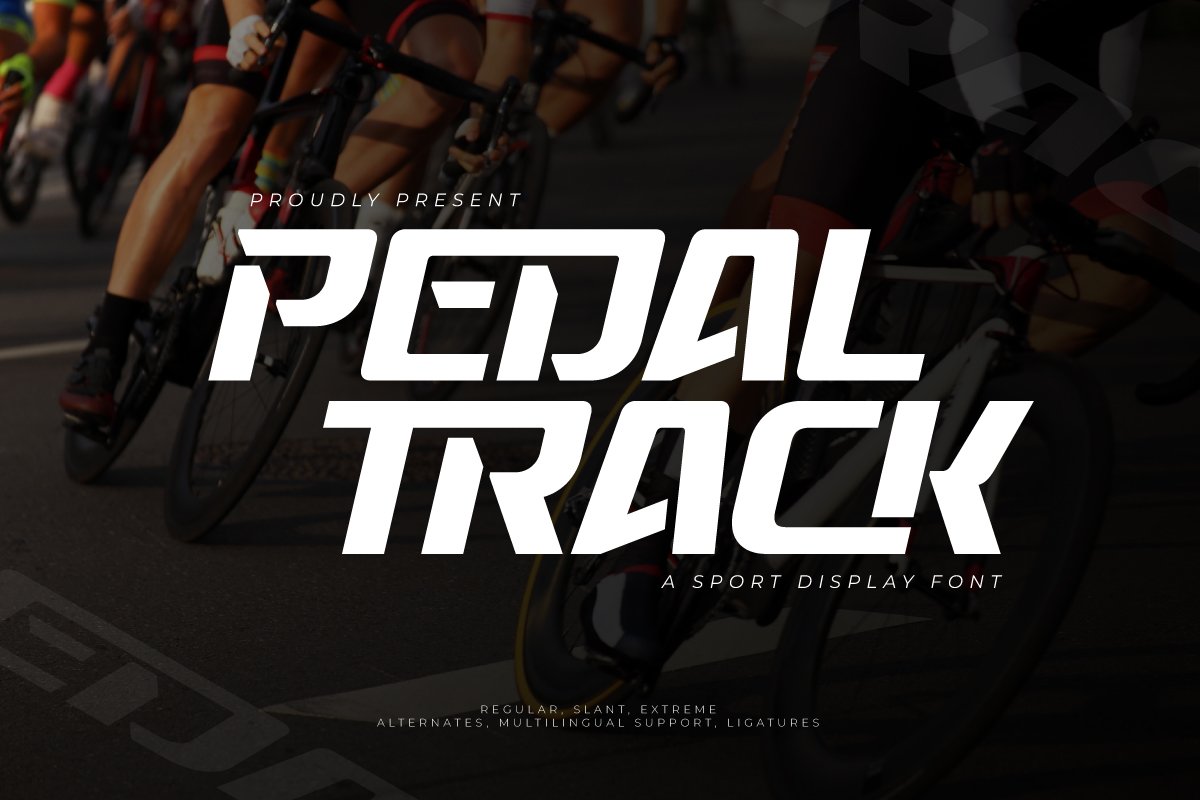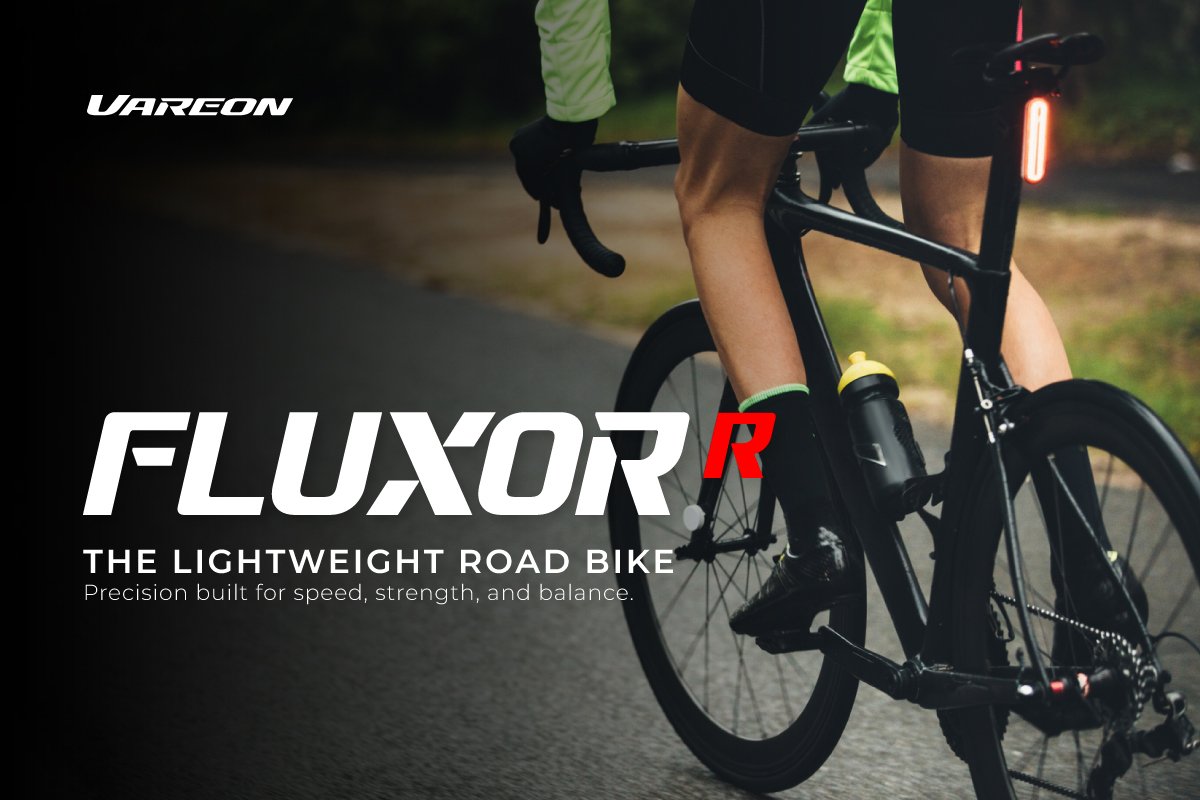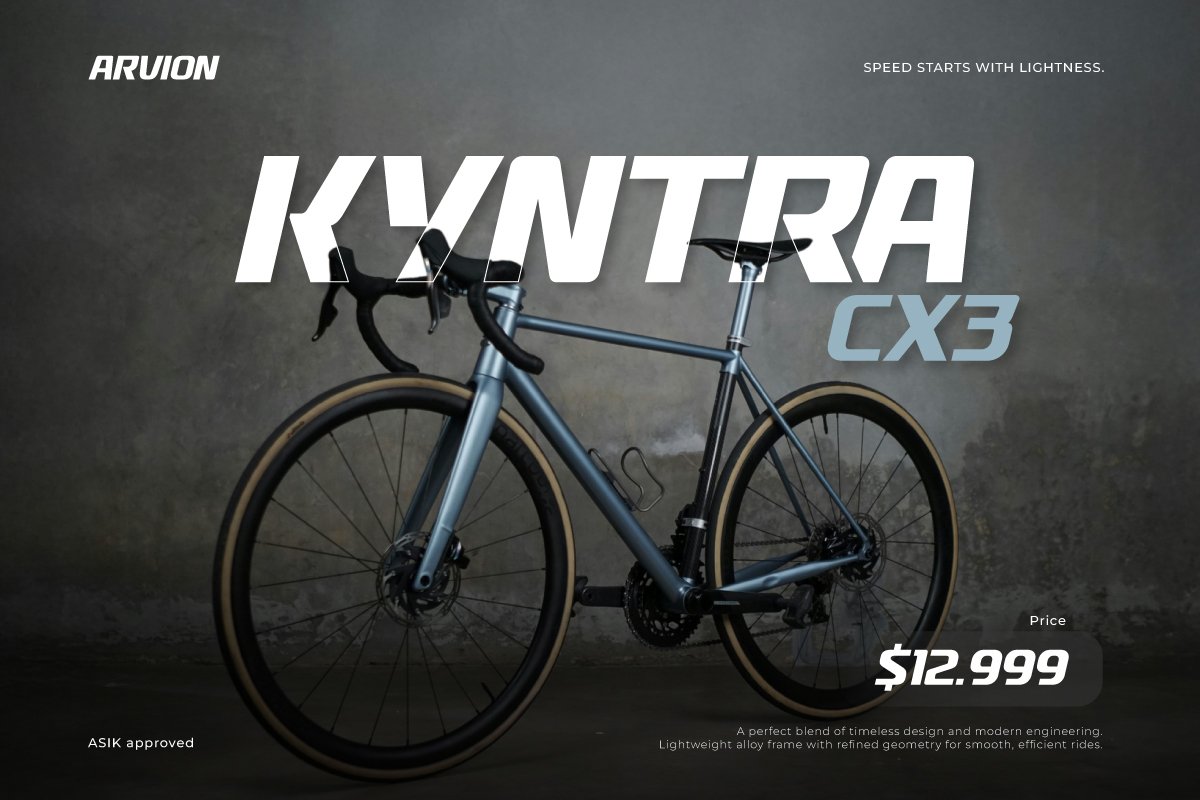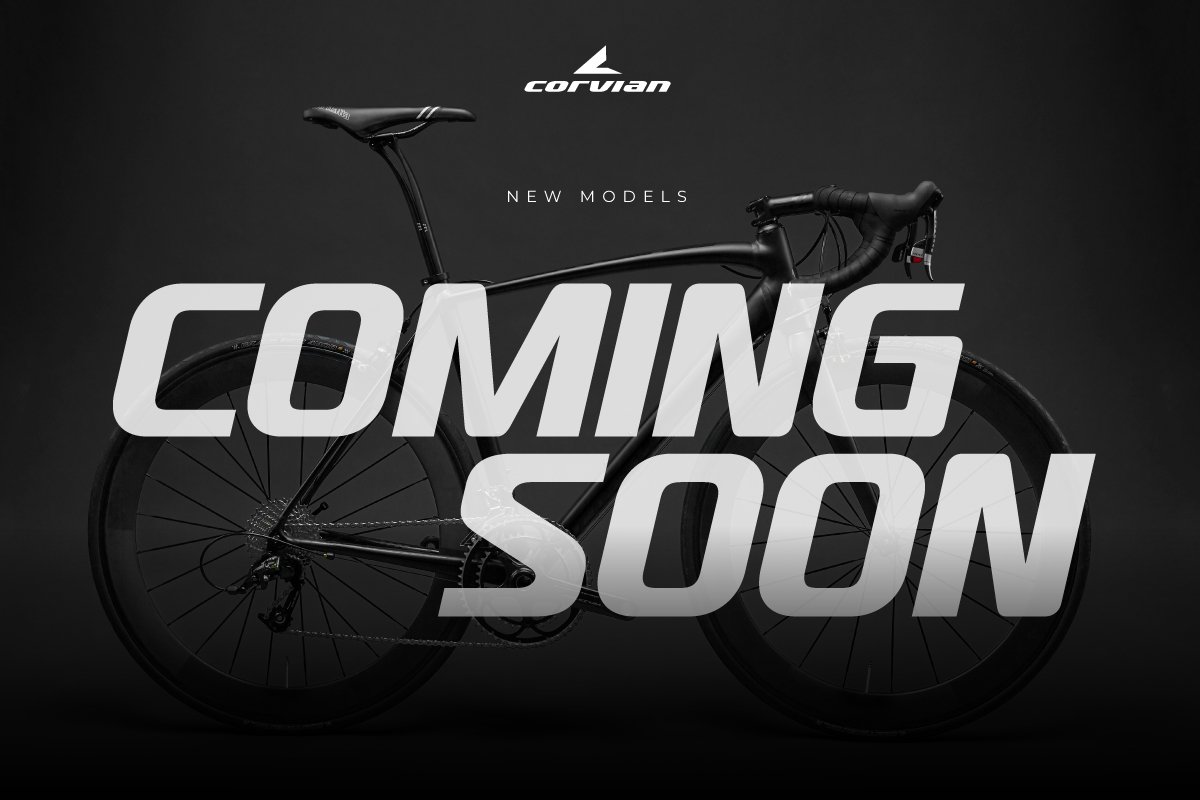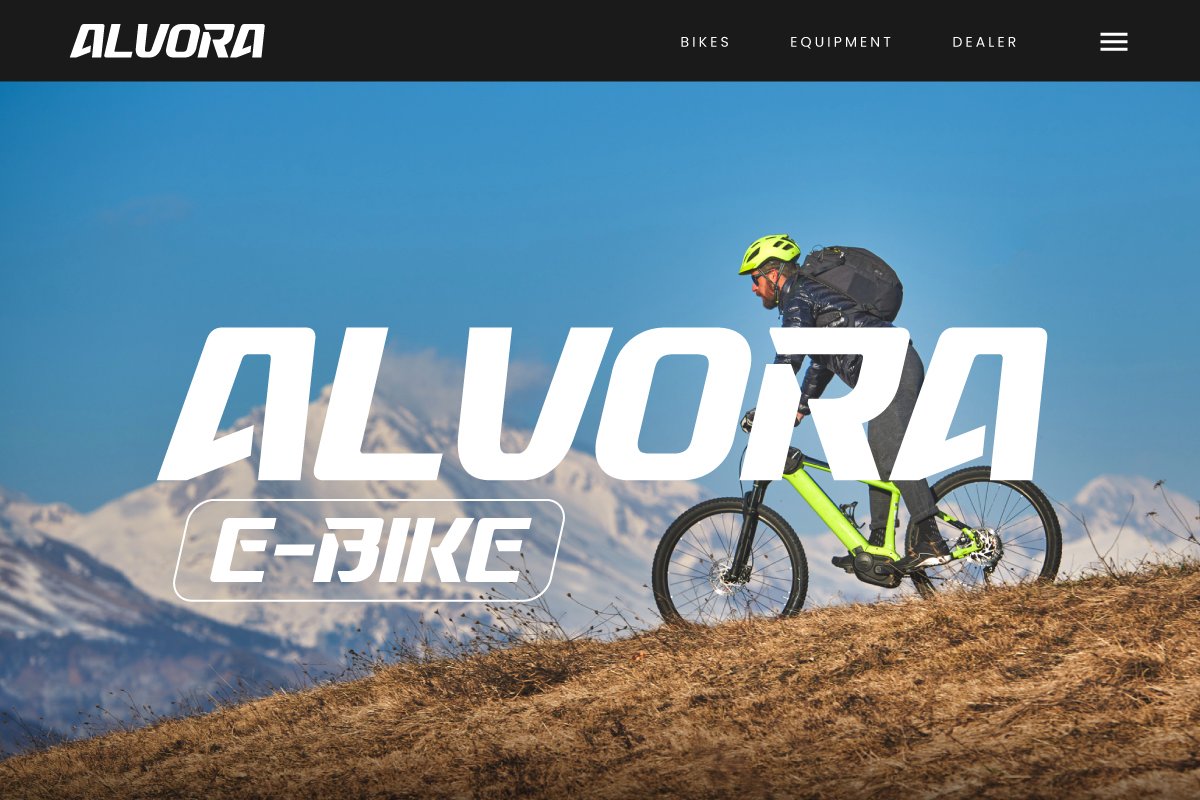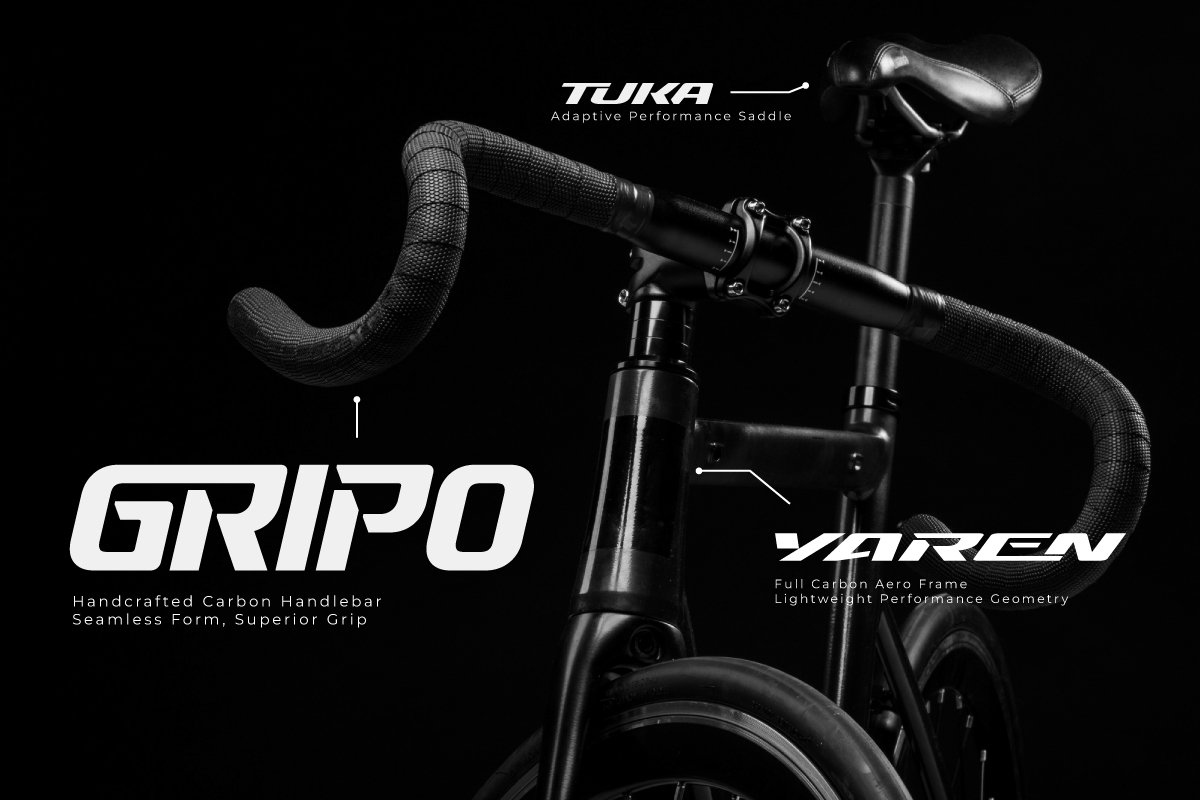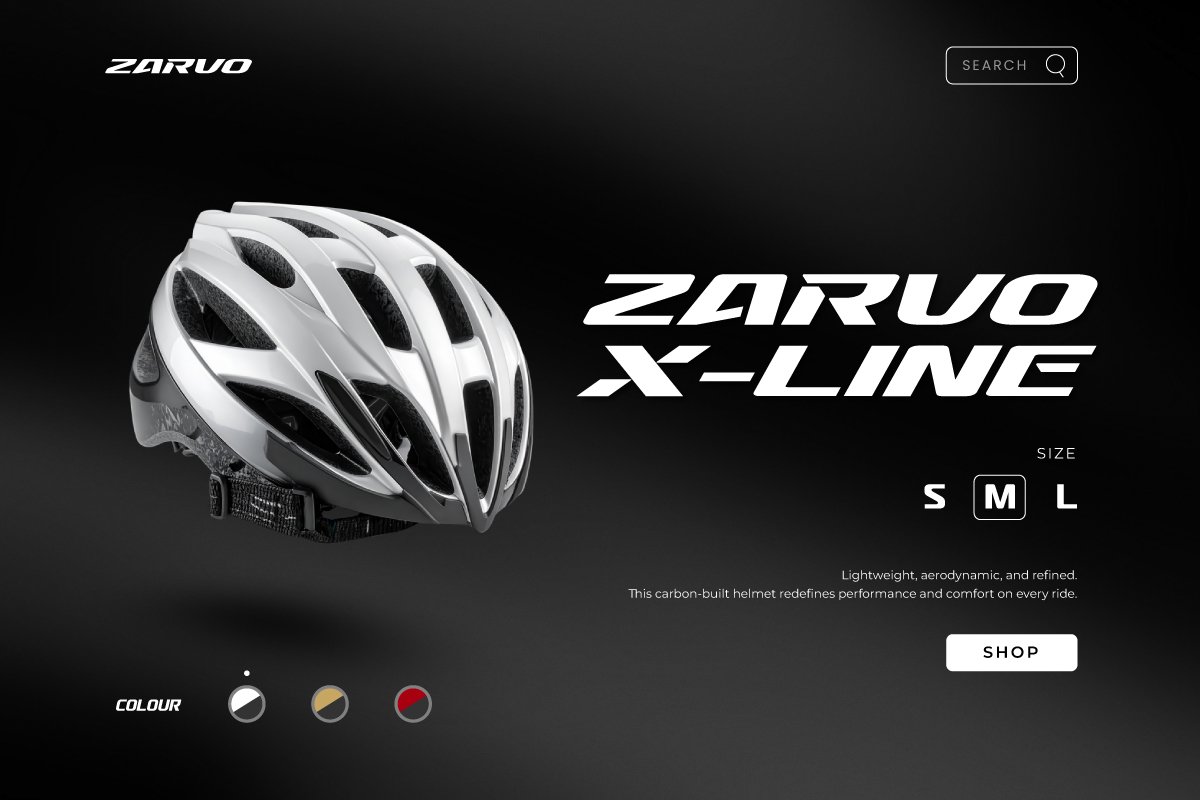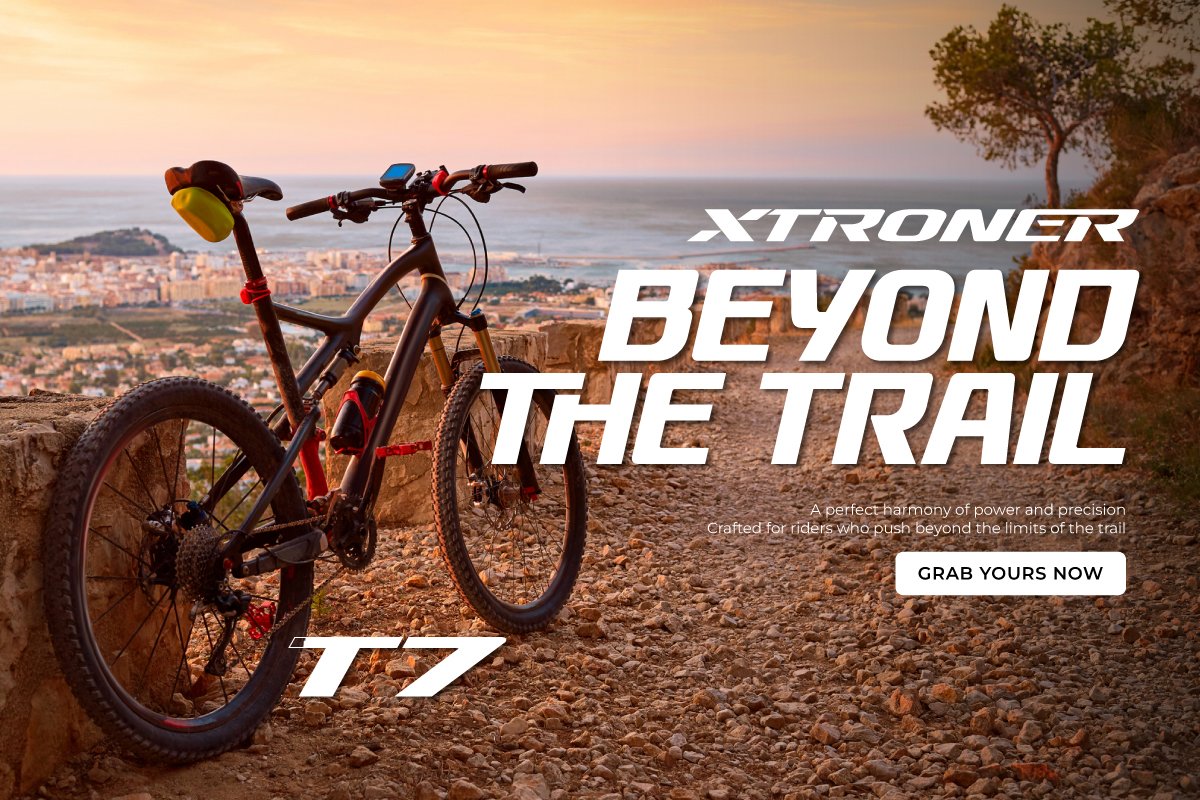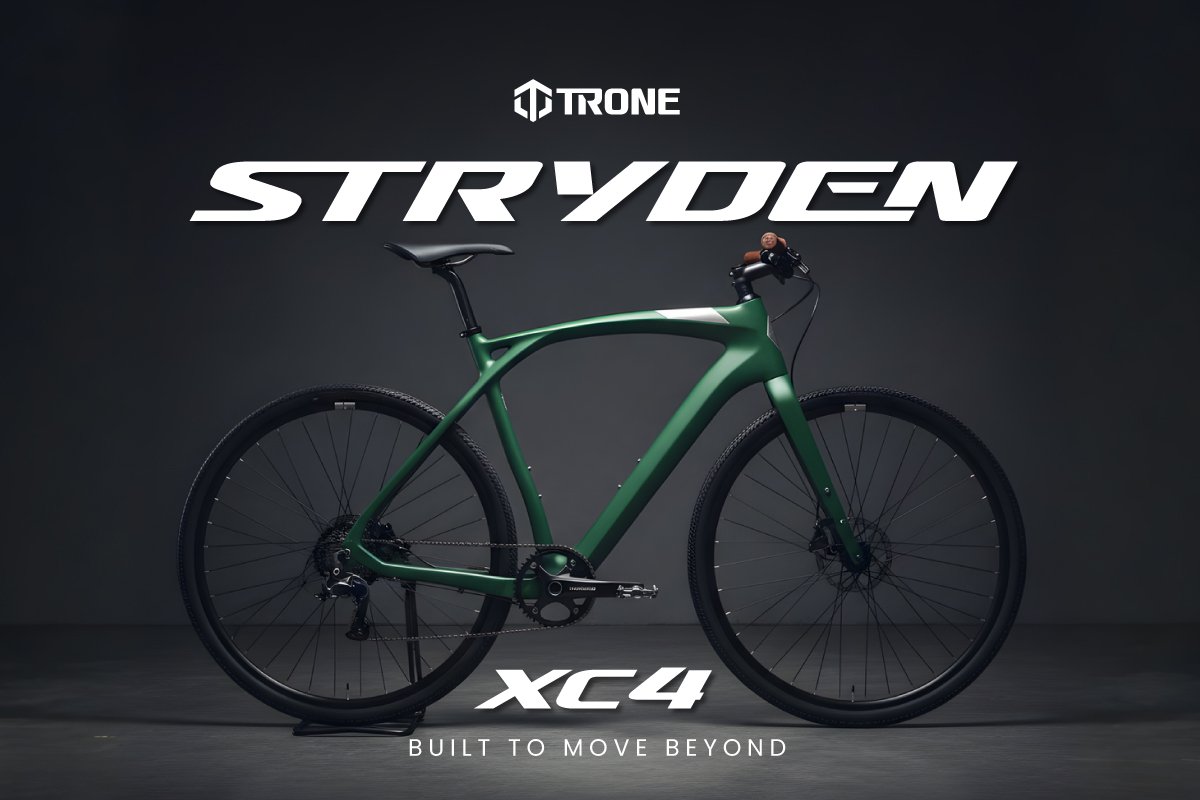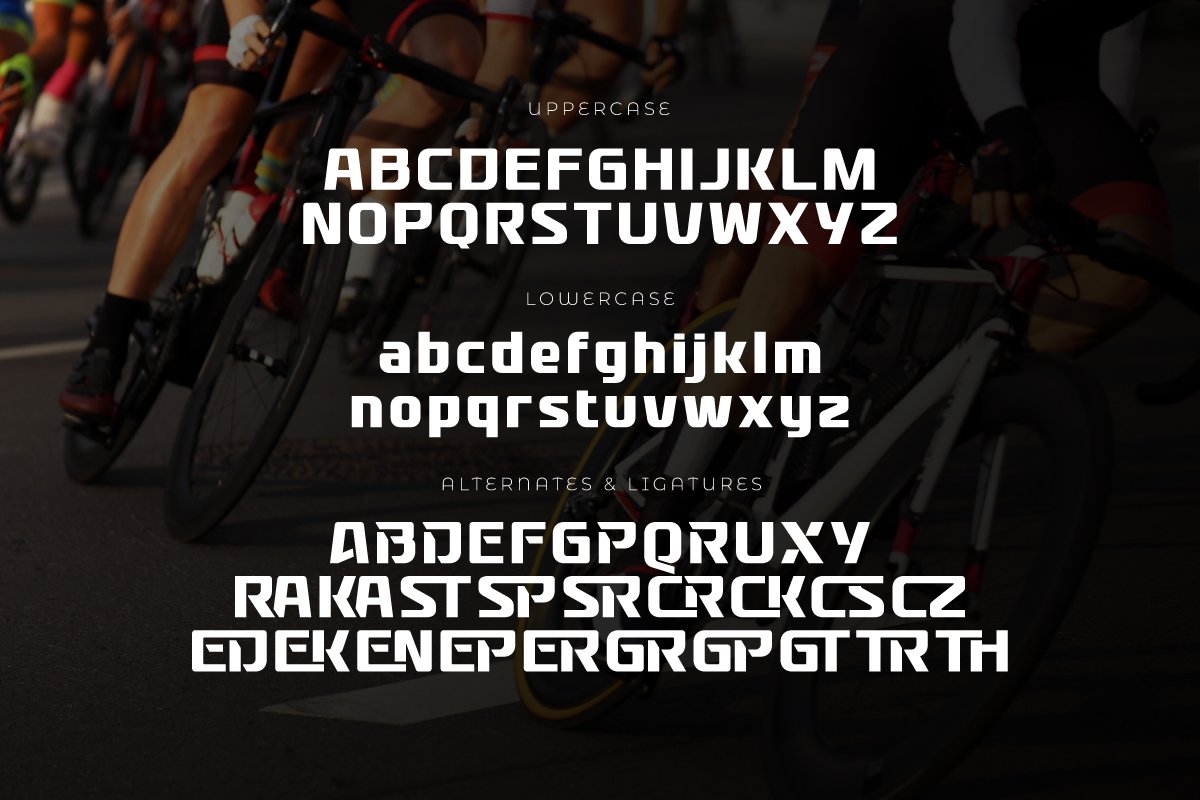
- Pedal Track – Sport Bicycle Font
Pedal Track – Sport Bicycle unleashes the power of motion and speed, inspired by the dynamic world of cycling and athletic endurance. Each letter is crafted with sharp edges and bold cuts, creating a perfect balance between strength, precision, and modern style—ideal for sports branding and adventure design.
With Regular, Slant, and Extreme versions, Pedal Track gives full flexibility for designers seeking energetic, high-performance visuals. Its structure evokes the rhythm of pedaling—perfect for logos, race posters, bike apparel, or cinematic sports titles.
Modern, fast, and confident, Pedal Track brings an urban athletic spirit into every composition. Featuring alternates, ligatures, and multilingual support, it’s built to push your design forward—where speed meets creativity.